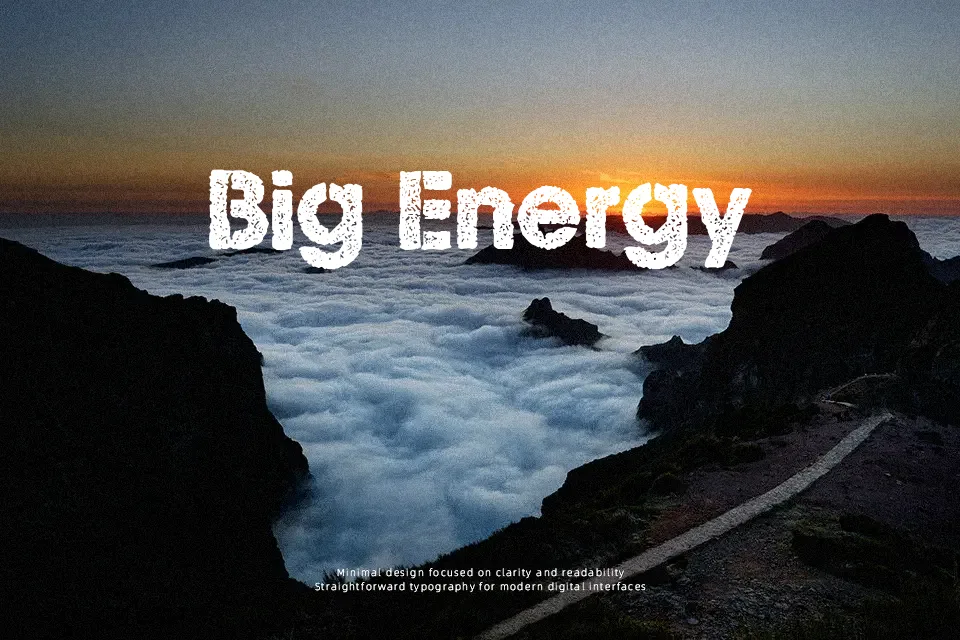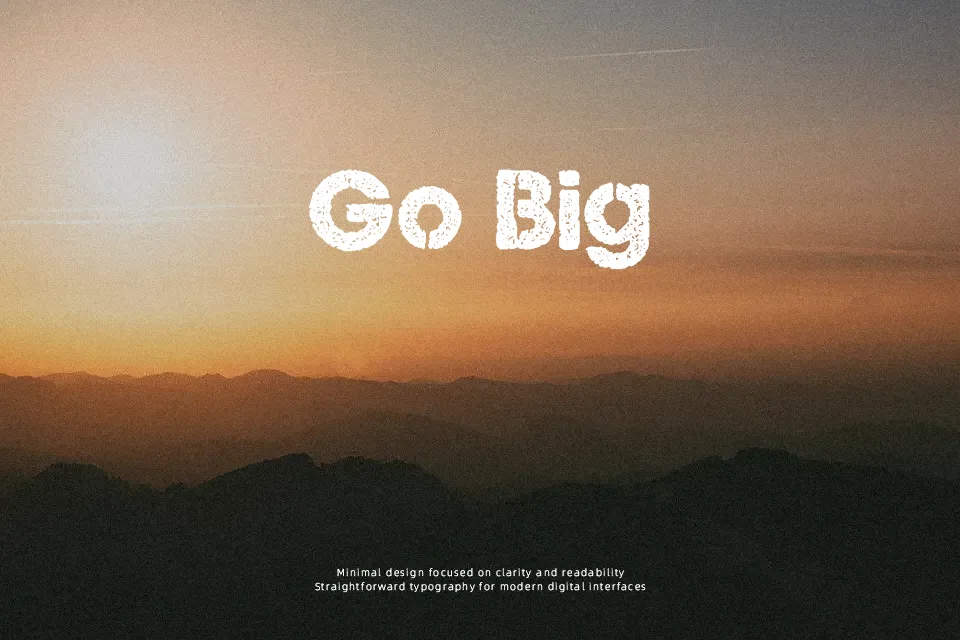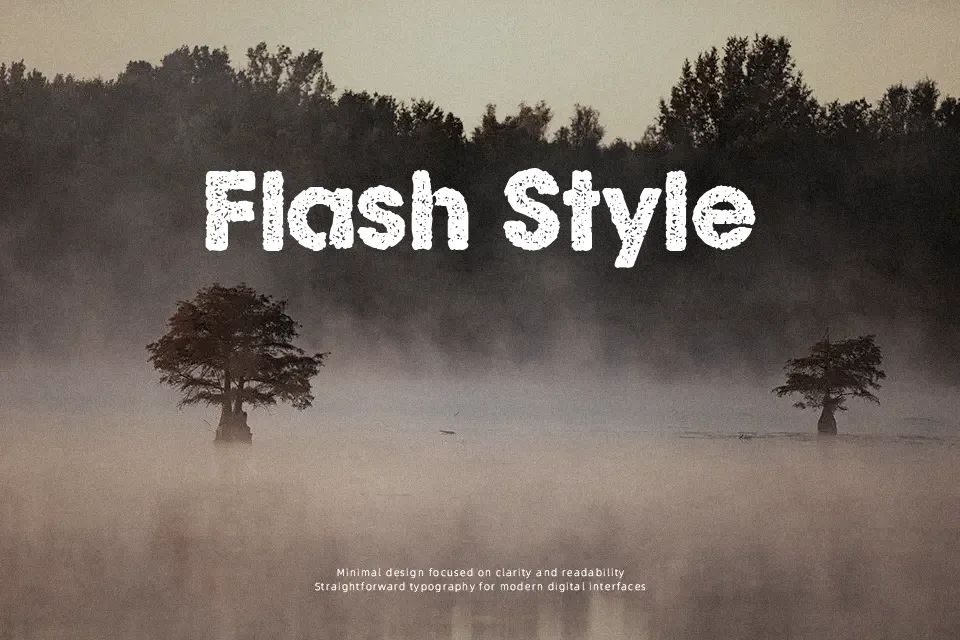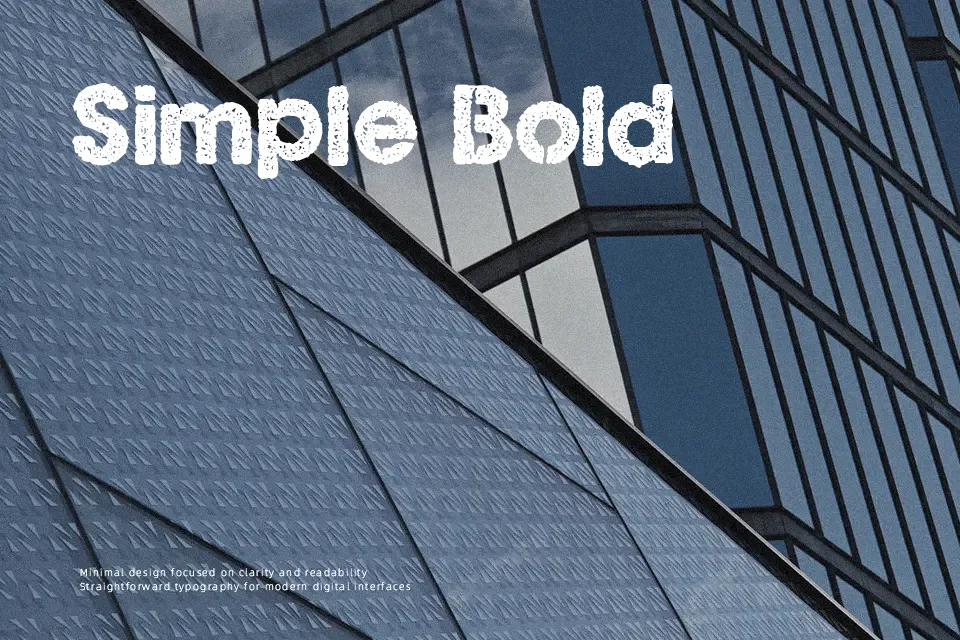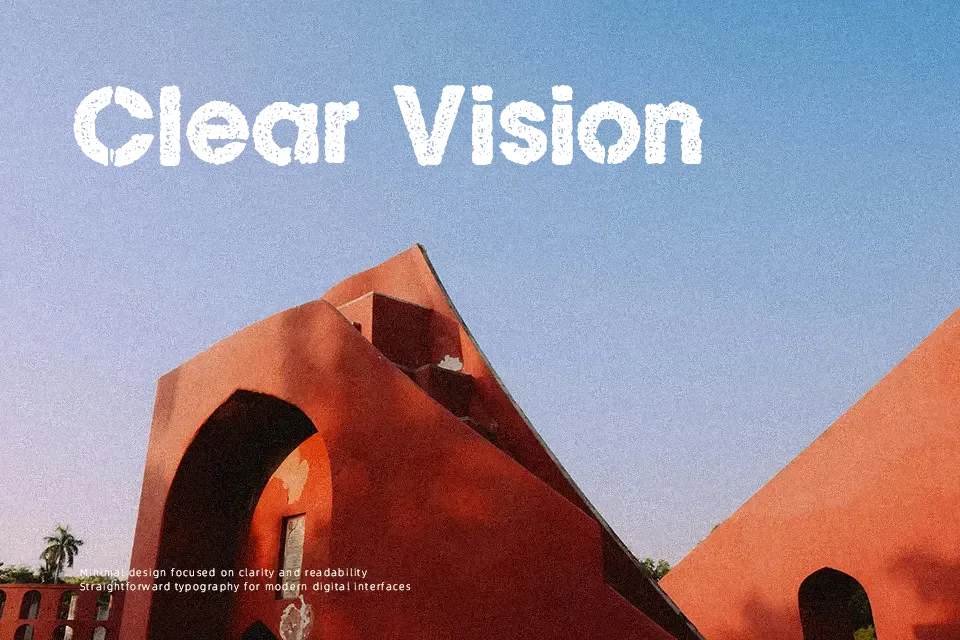
CF Ghost Stories Font
Designed by Cloutierfontes
CF Ghost Stories Font delivers an aggressive stencil structure defined by eroded surfaces, sharp breaks, and thick, uneven letterforms. Each character incorporates intentional stencil apertures alongside distressed cutouts that create a decayed, weathered appearance across uppercase letters. Spacing remains relatively tight to maintain visual cohesion across bold display arrangements. The heavier weight enhances immediate visibility at large scales, making the design suitable for escape room branding, spooky festival banners, and game title cards. However, the abrasive detailing and broken counters significantly impede legibility when scaled down to smaller sizes. Long passages and continuous body text become fatiguing to decipher because the irregular silhouettes disrupt rhythmic reading.
Best For: horror movie posters, halloween event merchandise, video game title screens, escape room signage
Not Ideal For: continuous body text, mobile application interfaces, legal documentation, small caption text
Perfect for film, gaming, and halloween, with a bold and decorative style.